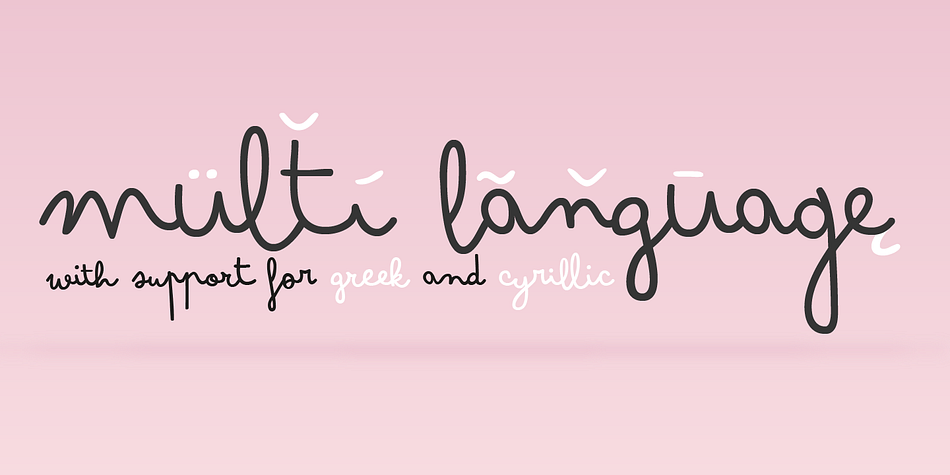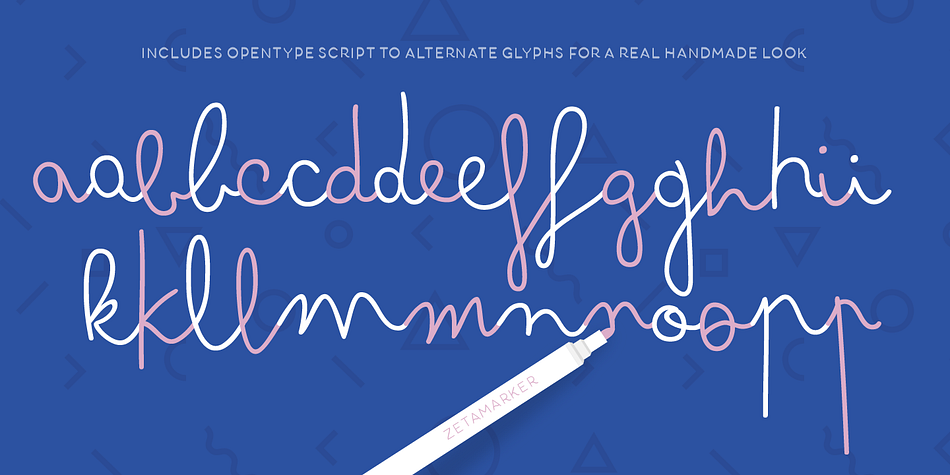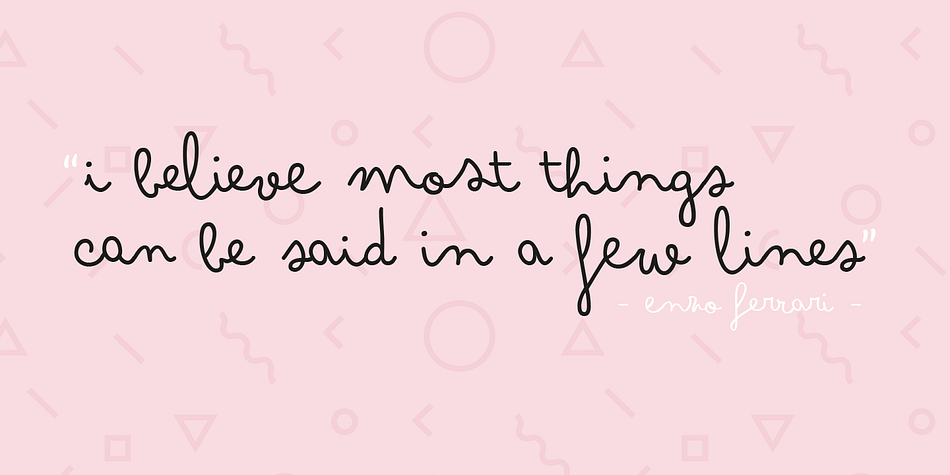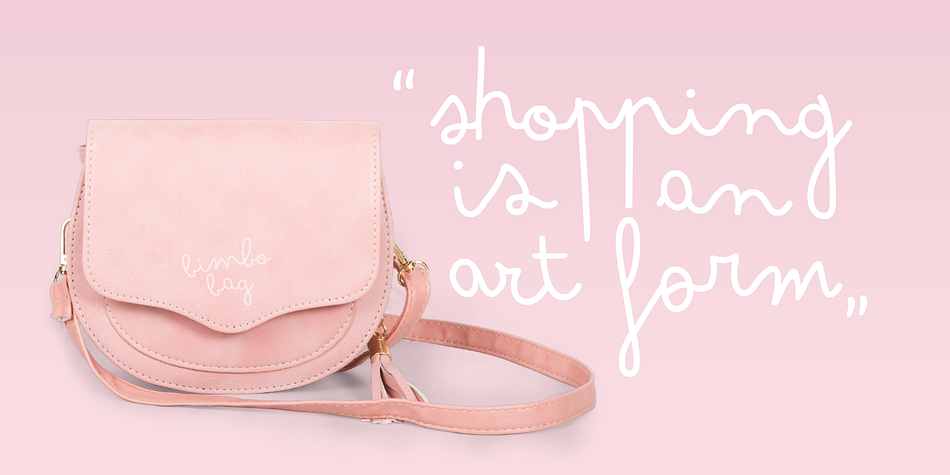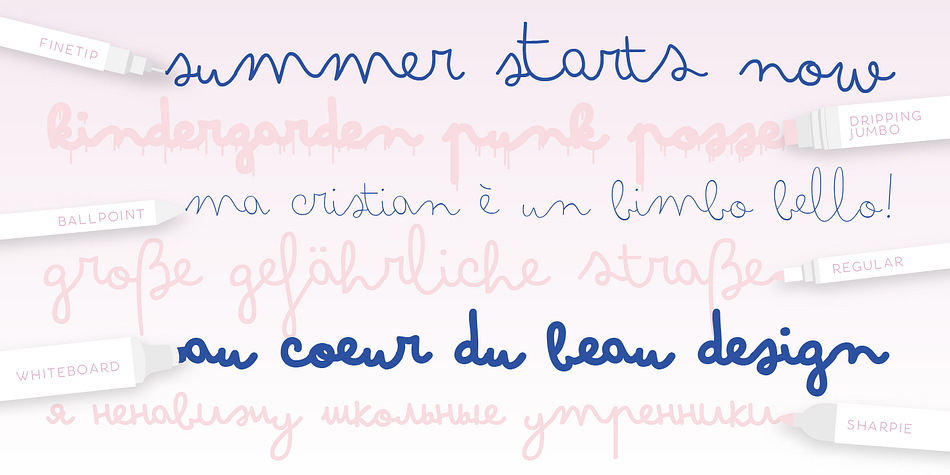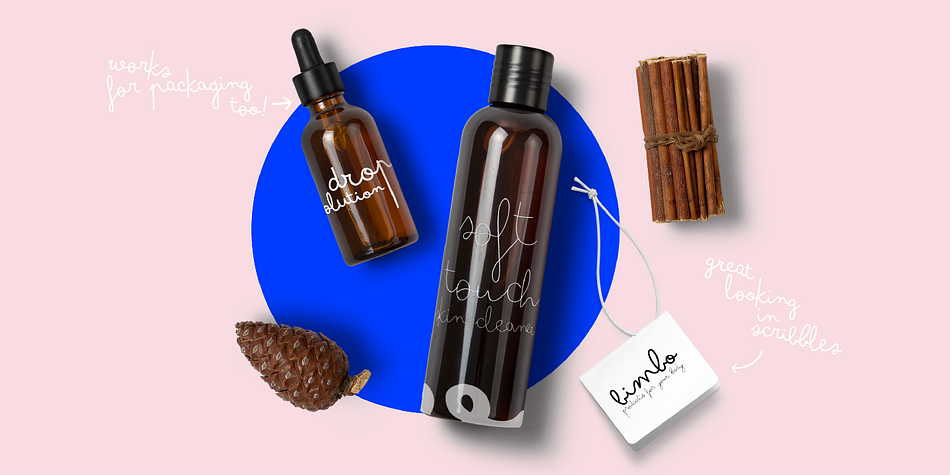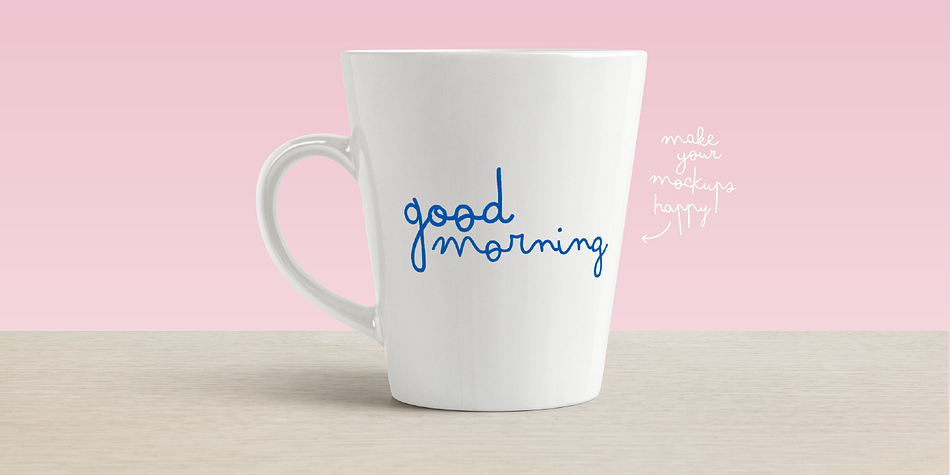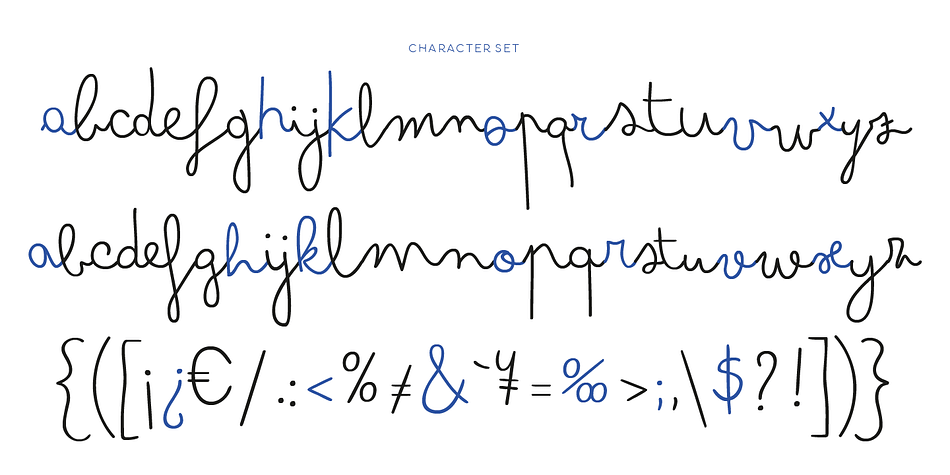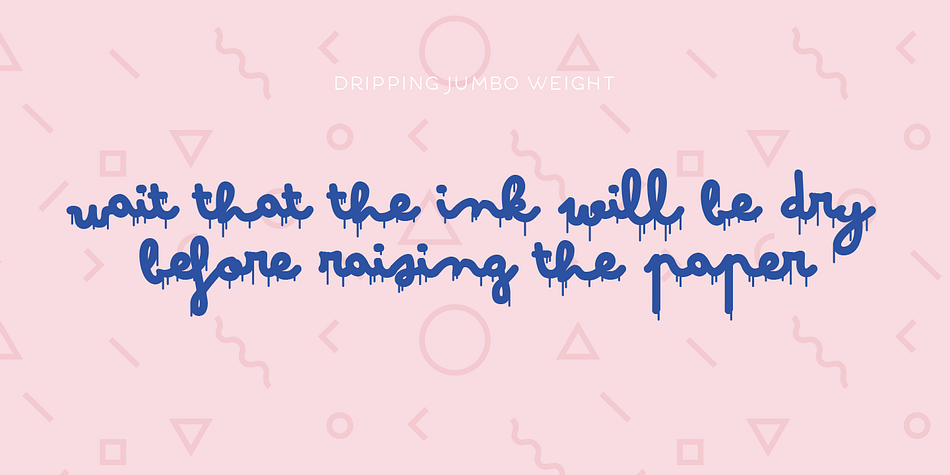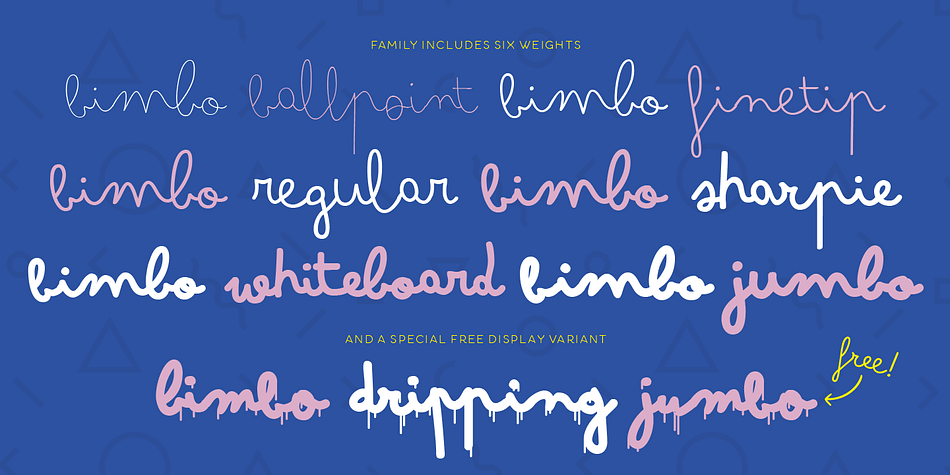
Designed by Francesco Canovaro, Bimbo is a script font family. This typeface has seven styles and was published by Zetafonts.
Bimbo is a monoline script font family created in 2018 by Francesco Canovaro for Zetafonts as an extension & redesign of the original Arsenale White typeface created with italian illustrator Jonathan Calugi.
Bimbo expands the original design with six new weights and over 300 new characters to cover over 70 languages using the latin, greek and cyrillic alphabets, while keeping the handmade aesthetic that made successful the original font.
Bimbo is essentially a display font, born for minimal lettering and logos, with a handwritten sensibility enhanced by the built-in letter swapping open type feature that makes sure double letters are always different one from another.
Open counters and a monoline design allow for great readability at small sizes, making Bimbo the ideal font for creating fake handwritten notes and meta-textual jokes.